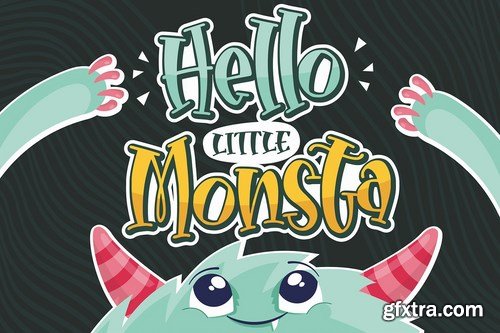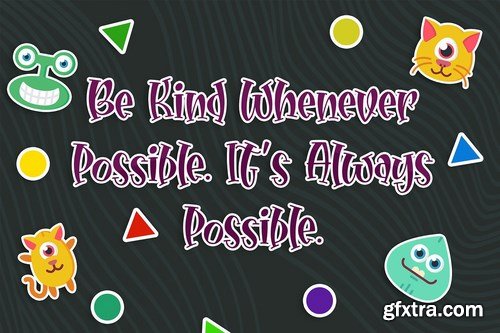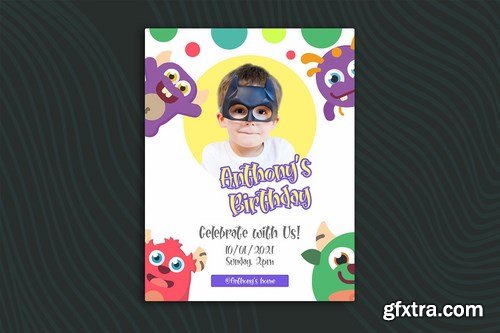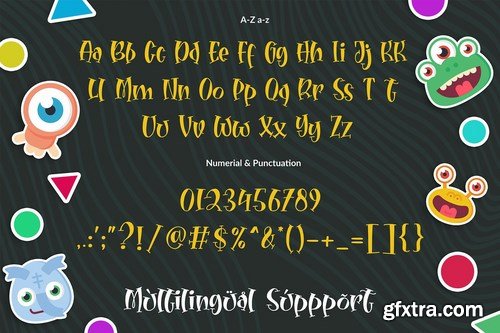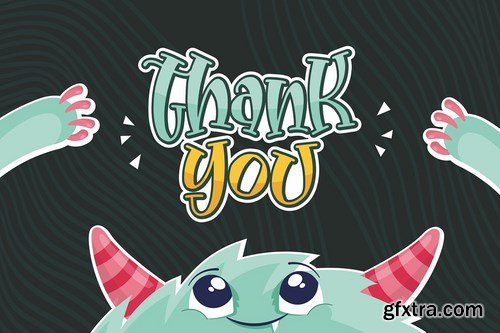
Hello Little Monsta is a fun playful font that suitable for your cute design project. This font is perfect for kids themed design such as story book, birthday invitation, and many more. Just be creative with Hello Little Monsta font!